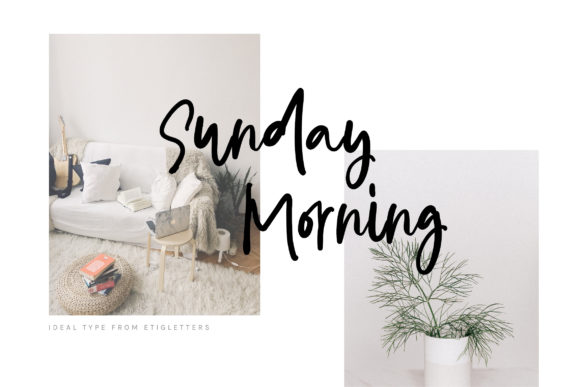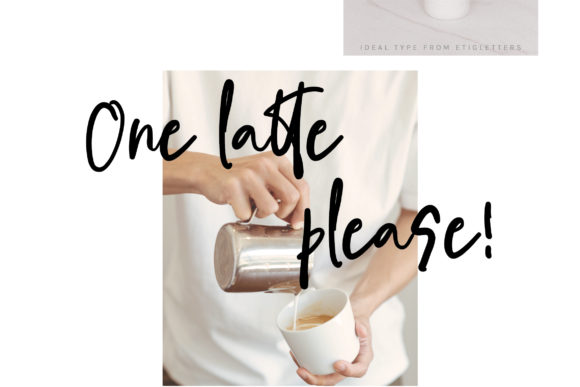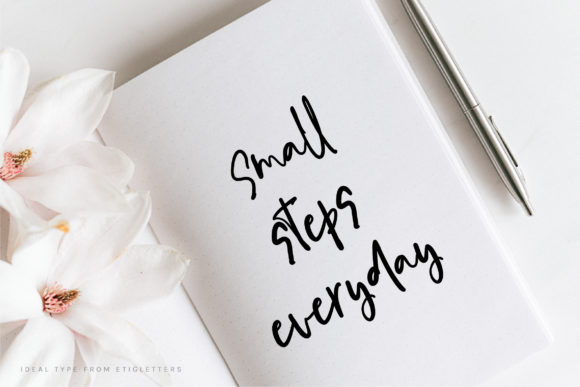
Getting Your Creative Spark
Remember that moment when you stumbled upon the perfect font for your creative project? It’s like the missing piece of the puzzle that makes everything fall into place. For designers, finding the right font can be a game-changer, elevating a project from good to great. And, if you’re anything like me, you’re always on the lookout for that special something that will give your design a personal touch.
That’s where the Ideal Type Font comes in – a beautiful, flowing handwritten font that’s as versatile as it is charming. Whether you’re crafting a high-quality design resource for a client or working on a DIY project with a transparent background, Ideal Type Font is the perfect companion to bring your ideas to life.
Key Features of Ideal Type Font
- High-quality design resource with a transparent background, ideal for creative projects requiring a modern and sleek aesthetic.
- Designed with a clean and minimalist approach, making it an excellent choice for designers seeking a simple yet effective font for their projects.
- Perfect for use in various design applications, including logos, graphics, and digital interfaces, due to its versatility and high-quality design.
Honest Review: Ideal Type Font
As a designer, I’m always on the lookout for high-quality design resources that can elevate my creative projects. I recently had the chance to try out the Ideal Type Font, and I’m excited to share my thoughts.
What works well: ✨ The Ideal Type Font is incredibly versatile, making it a great addition to any design project. I particularly love its clean and modern aesthetic, which pairs perfectly with transparent backgrounds. The font is also super easy to customize, making it a breeze to tailor to your specific needs.
- ✨ High-quality design: The Ideal Type Font is a beautifully crafted font that’s sure to elevate any creative project.
- ✨ Versatile: This font can be used for a wide range of applications, from web design to print materials.
- ✨ Easy to customize: The Ideal Type Font is incredibly easy to manipulate, making it perfect for designers of all skill levels.
Limitations: ⚠️ While the Ideal Type Font is an excellent addition to any design toolkit, I do wish it came with more language support. Currently, it only supports a limited number of languages, which can be a bit of a limitation for designers working on global projects.
Overall impression: The Ideal Type Font is a fantastic design resource that’s perfect for designers looking for a high-quality, easy-to-use font. While it may have some limitations, its benefits far outweigh its drawbacks. I’d highly recommend it for any creative project that requires a beautiful, modern font.
The Ideal Type Font is a versatile design resource ideal for various creative projects. This high-quality font offers a transparent background, making it perfect for backgrounds, overlays, or text effects.
Tips for Getting the Most Out of Ideal Type Font
Experiment with different font sizes, colors, and styles to achieve unique text effects. Use the transparent background feature to create overlays or backgrounds that add depth to your design.